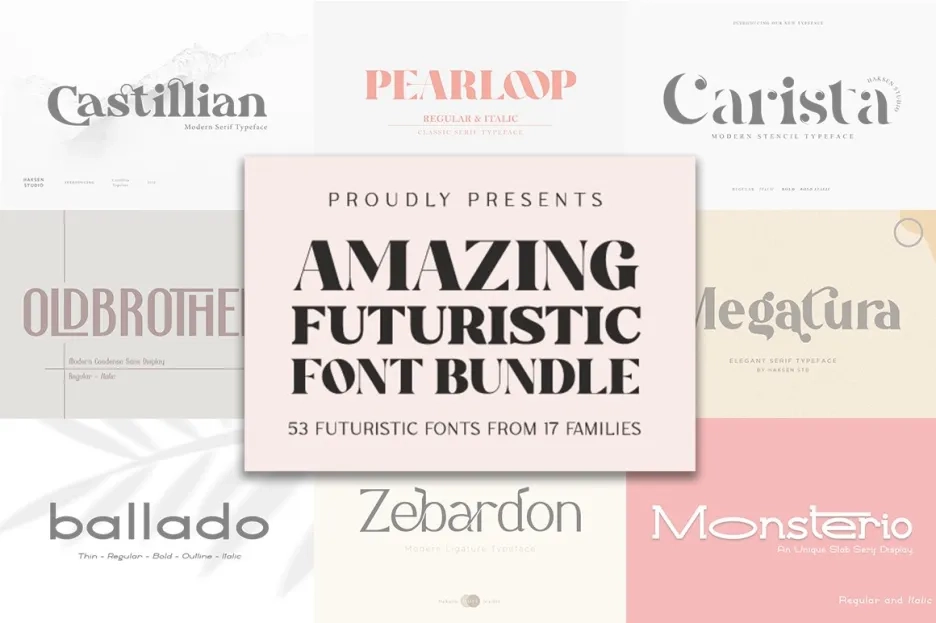
Amazing Futuristic Font Bundle
Introducing the Amazing Futuristic Font Bundle, a curated collection of modern typefaces designed to elevate your creative projects. This bundle includes a variety of font styles, each crafted with precision to bring a contemporary edge to your designs.
• Multiple font styles: Bold, Regular, Italic, and more
• Unique futuristic designs ideal for various applications
Each font in this bundle offers a distinct aesthetic, perfect for branding, logos, web design, print materials, and user interfaces. The versatility of these typefaces allows for seamless integration into any project.
To make the most of these fonts, consider pairing different styles for a dynamic look. Use them in headlines, promotional materials, or digital content to capture attention and convey a modern vibe.